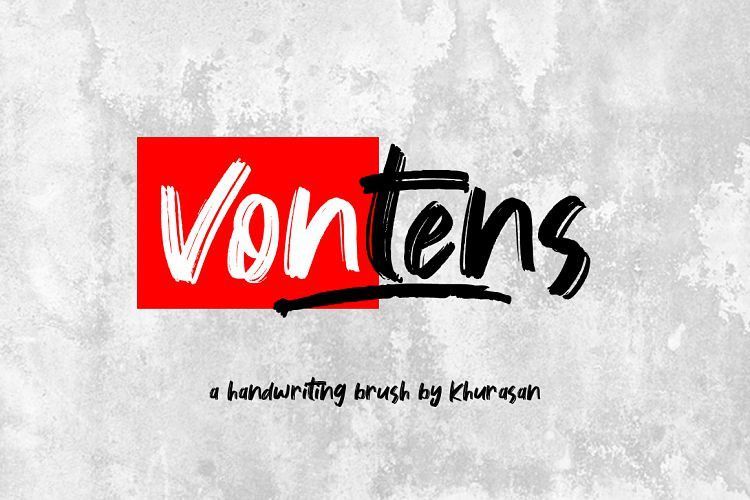
Vontens Brush Font
Say hello to the Vontens Font! This is a rough brush script font with a clear style and dramatic movement this font is great for your next creative project! It is designed and shared by khurasan. It is a fresh handwritten font brush, elegant and vintage feel character set.
The Vontens font includes a full set capital and lowercase letters, as well as multi-lingual support, currency figures, numerals, & punctuation.
And Vontens Brush perfect for signature, handwritten quotes, wedding, product packaging, fashion, photography, merchandise, branding projects, poster, social media, book cover, greeting cards, and advertising.